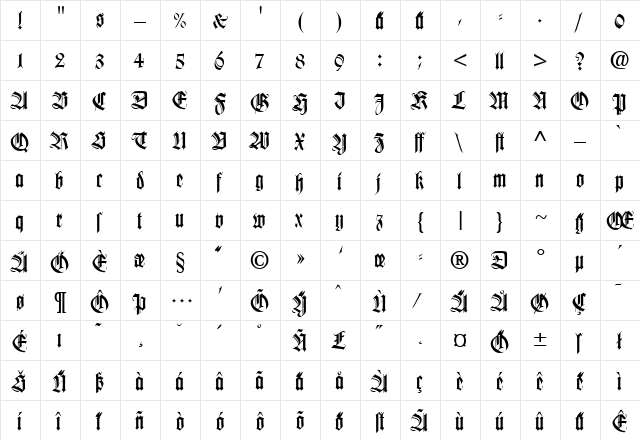
WilheKliGotDfr Regular
WilheKliGotDfr is a composed and adaptable typeface that performs quietly and consistently across a wide range of design contexts.